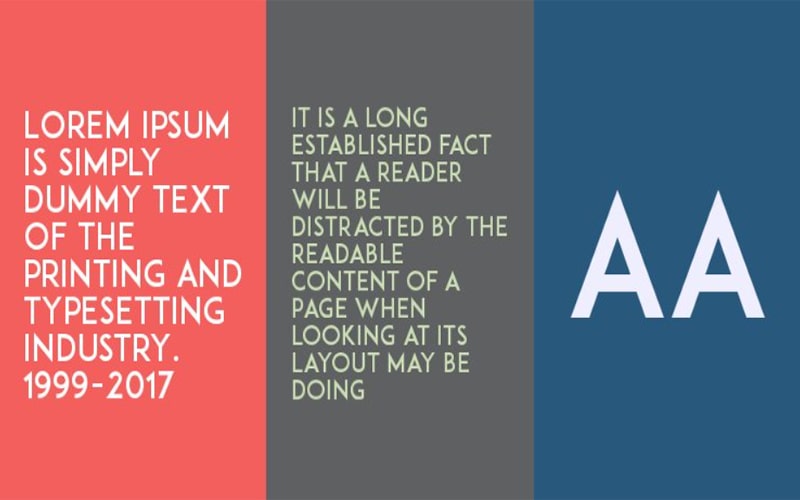
Adam. cg Pro Font is a Basic, Sans serif typeface. This font has a sharp and clean appearance which is suitable for both small and large sizes.
Shrenik Ganatra is known as the primary designer of this vintage typeface. The designer Shrenik Ganatra is from Mumbai, India.
It was first seen on 21 April 2019 and updated on 31 January 2020. It consists of 225 defined characters and 228 GLYPHS count in number.
This beautiful and stunning font contains one regular style such as the “Adam. cg Pro Regular” font style. The subfamily of Adam.CG Pro Font is regular.
Adam. cg Pro Font
It also supports multiple international languages with Basic Latin characters. A few languages are such as Afrikaans, English, French, German, Italian, Spanish, Swedish, Turkish, and Zulu.
It is a perfectly suitable typeface for all kinds of body text, headlines, titles, and logos. A light version sharp texture typeface is also best for headlines, posters, titles, and captions as well.
This amazing free version font is available in all uppercase letters, all caps, and numerous. So this is absolutely a great choice for you guys to use for designing your various projects.